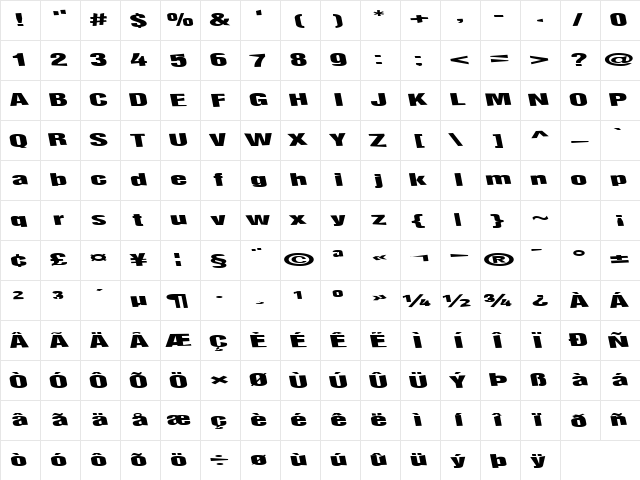
ChildsPlayType64 Regular
Design Context for ChildsPlayType64 Typeface
ChildsPlayType64 has an approachable, lighthearted character — its loose, expressive forms are well-suited to children's content, casual branding, and fun-first design.
Font Pairing: Pairs well with a rounded or humanist sans for body copy, maintaining the friendly tone without relying on ChildsPlayType64 to carry extended reading.
Pro Tip: Avoid using ChildsPlayType64 for long passages of text — it works best for headlines, labels, and short calls to action.